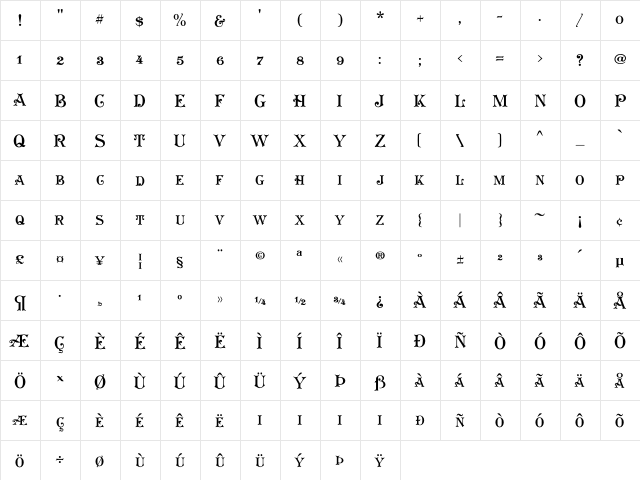
Koster Plain Caps Regular
Design Context for Koster Plain Caps Typeface
Koster Plain Caps takes a measured approach to typography — its balanced proportions and neutral character make it a reliable workhorse for both digital and print work.